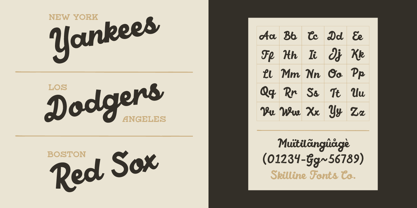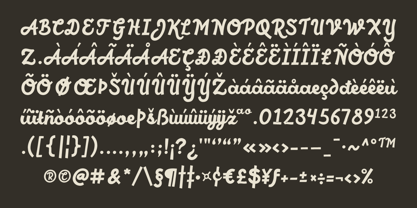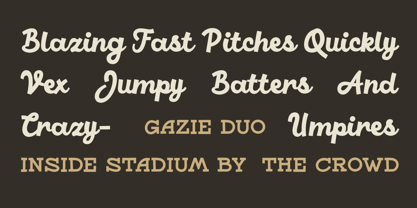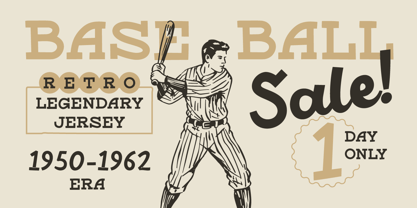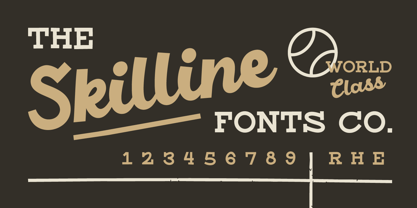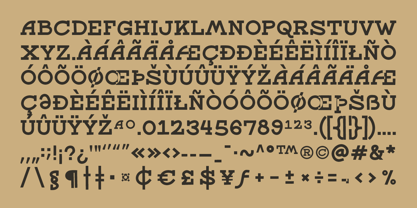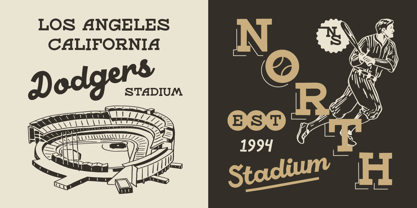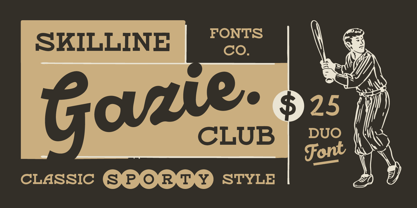
SFC Gazie
by Skilline Fonts Co.
The SFC Gazie Font Family was designed by Ahmad Nur Alfian and published by Skilline Fonts Co.. SFC Gazie contains 2 styles and family package options. More about this family
Gazie Duo is a vintage sport font duo featuring a bold retro script and classic slab serif inspired by classic baseball typography, varsity lettering, and old-school athletic branding. Perfect for baseball logos, sports branding, varsity designs, retro jerseys, team merchandise, vintage posters, baseball club branding, sportswear labels, and athletic packaging design.
The smooth script style brings energetic vintage sports vibes, while the strong slab serif adds bold structure and timeless headline impact. This powerful combination works beautifully for team logos, baseball stadium branding, jersey numbers, emblem badges, sports apparel, promotional graphics, editorial layouts, and nostalgic Americana design projects.
Gazie Duo is ideal for designers creating premium varsity branding, retro sports identities, championship merchandise, classic baseball posters, and heritage-inspired logo systems with authentic vintage character.
Designers: Ahmad Nur Alfian
Foundry: Skilline Fonts Co.